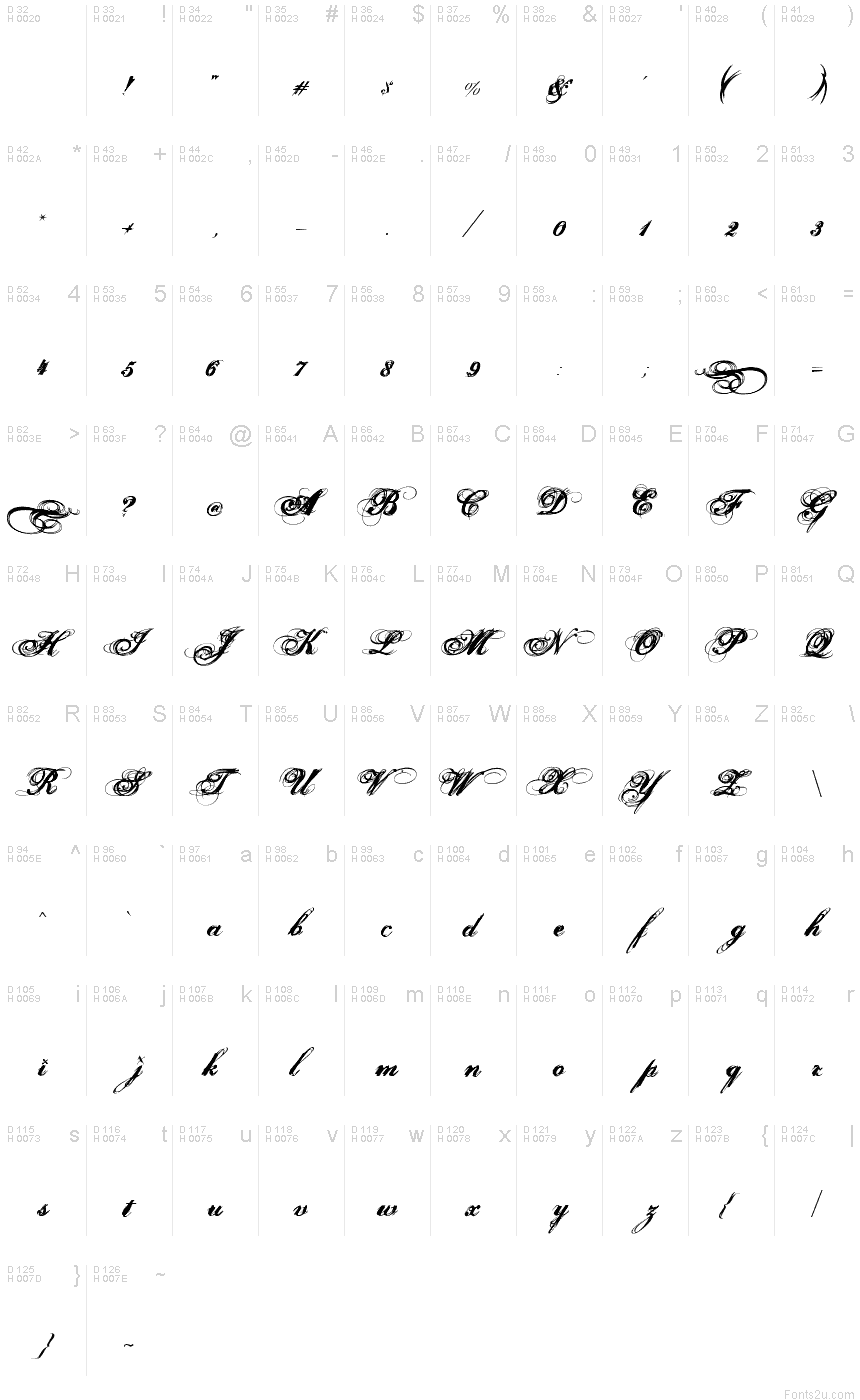
Hurricane SupaDupaSerif
Hurricane SupaDupaSerif font by Xero Harrison is a free grunge script typeface that looks like it was whipped onto the page with a storm-soaked brush. Heavy inky strokes explode into chaotic curls and barbed flourishes, with rough, splattered edges that feel more like graffiti than calligraphy. It has a dark, theatrical energy-dramatic, tangled, and a little dangerous-that instantly pulls the eye and refuses to fade into the background.
Using Hurricane SupaDupaSerif, you can give band logos, horror or thriller posters, underground event flyers, tattoo-inspired art, album covers, and edgy fashion branding a raw, hand-scarred presence. This free font thrives at large sizes where its curls and scratches can breathe; anchor it with a clean, neutral sans serif for supporting text so the wild script can steal the spotlight.